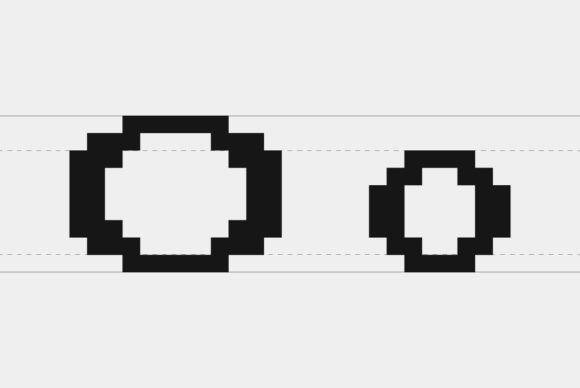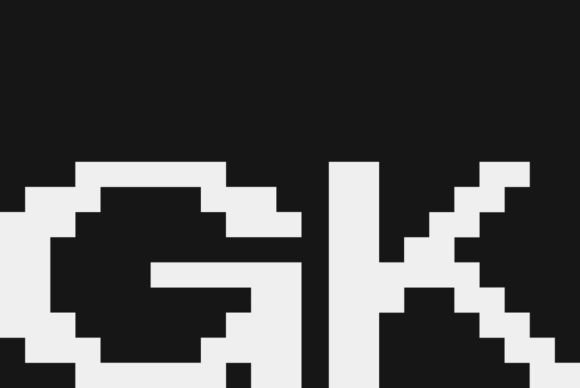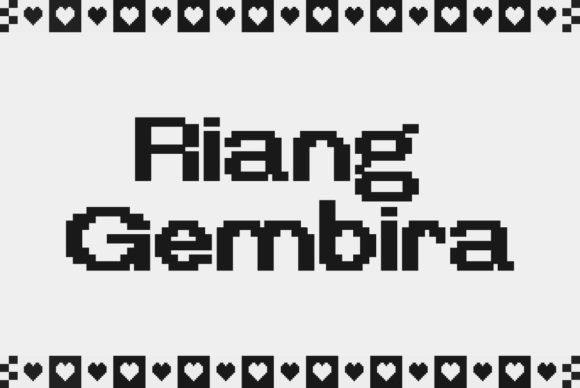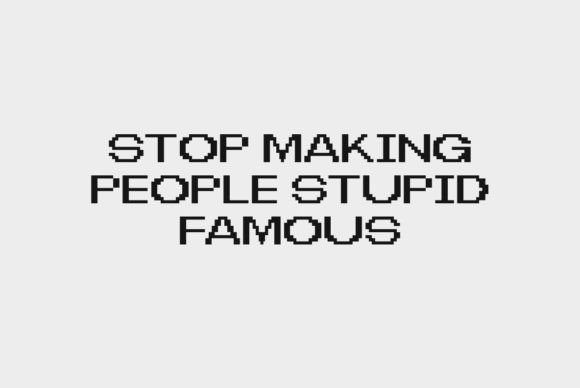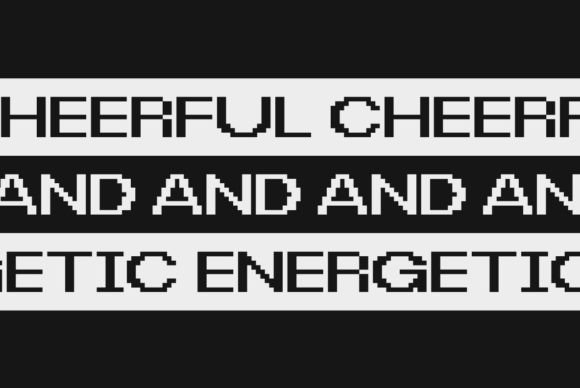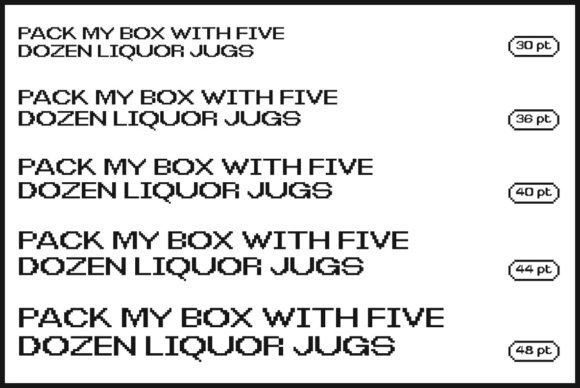
Where Creativity Meets Code
Do you remember the thrill of creating pixel art as a kid? The hours spent carefully crafting each blocky character, the sense of pride as your masterpiece came to life? For many of us, that nostalgic spark is still burning bright, and that’s where the Bitpop Font comes in – a digital typeface that embodies the spirit of modern tech and pixel art trends.
Designed to capture the energy and excitement of digital design, the Bitpop Font is the perfect tool for designers seeking to infuse their work with a unique, pixelated charm. With its bold, carefully crafted characters, this font is ideal for a wide range of applications, from digital projects and games to pixel art and tech-inspired branding.
Bitpop Font Key Features
- Character Set: The font includes a comprehensive set of characters, including uppercase and lowercase letters, numbers, punctuation marks, and special symbols, making it suitable for a variety of applications.
- Unique Characteristics: The font features a distinctive, pixelated aesthetic reminiscent of 8-bit and 16-bit video games, making it a popular choice for retro-style designs and pixel art projects.
- Legibility: Despite its pixelated appearance, Bitpop Font is designed to be highly legible, with clear distinctions between characters and a consistent style throughout the font.
Bitpop Font Review
Overall, I have mixed feelings about the Bitpop Font. There are some aspects that I genuinely appreciate, but it also has its limitations.
- The Bitpop Font has a unique, nostalgic aesthetic that’s reminiscent of 8-bit and 16-bit video games.
- It’s highly legible, even at smaller font sizes, which makes it suitable for various design applications.
- The font is available in a wide range of weights, from light to bold, which gives designers a good deal of flexibility.
- The Bitpop Font may not be suitable for all design projects, especially those requiring a more modern or sleek look.
- The font’s nostalgia-driven aesthetic might come across as kitschy or gimmicky in certain contexts.
- Some characters, like the ‘e’ and ‘a’, may appear slightly irregular or inconsistent, which could be a distraction in certain designs.
While the Bitpop Font has its charms, I wouldn’t recommend it for every design project. Its unique aesthetic and high legibility make it suitable for retro-themed designs, pixel art, or even game-inspired branding. However, for more modern or minimalist designs, you may want to consider other font options.
To get the most out of the Bitpop Font, try combining it with bright, neon colors to create a retro-futuristic look. You can also use it to add a touch of nostalgia to your designs.
The Bitpop Font is commonly used for:
- Retro-themed designs
- Electronic music event promotions
- 80s and 90s inspired graphics
Alternatives to Bitpop Font
Comic Sans MS is a sans-serif font that is often used for informal and playful designs. It is best used for titles, headings, and other short text blocks where a casual tone is desired. While it has a similar playful feel to Bitpop Font, Comic Sans MS is more cursive and less geometric, giving it a softer look.
Pixel Font
Pixel Font is a digital font that mimics the look of old video games and pixel art. It is best used for retro-themed designs, video game titles, and other projects that require a nostalgic feel. Pixel Font is similar to Bitpop Font in its pixelated aesthetic, but it is more blocky and less rounded, giving it a more rugged look.